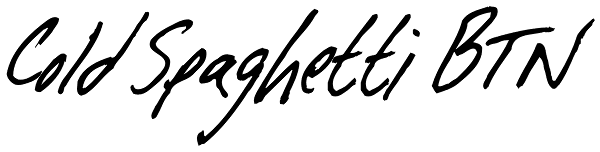
Cold Spaghetti BTN
Cold Spaghetti so called in tribute to the "Down Under" children's group the Wiggles, but was created in a style affectionatey referred to as chicken scratch due to its rushed and tall, skinny letters which appear as though they'd been created by an...